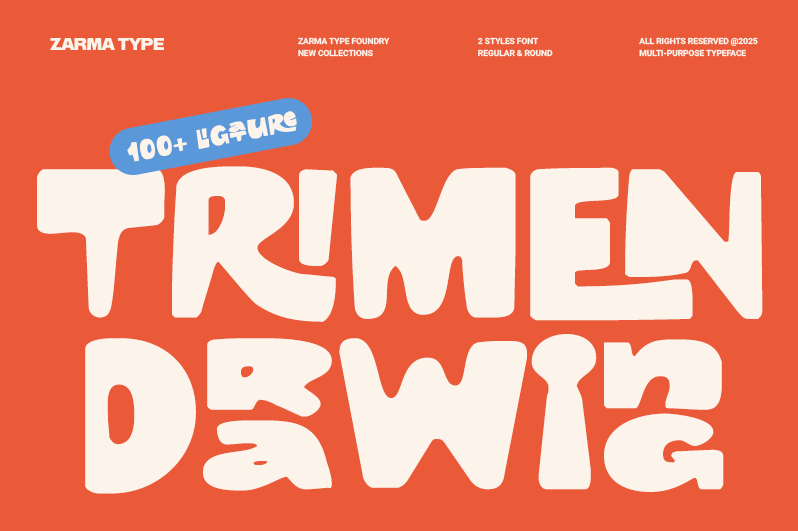
Trimen Drawing
Trimen Drawing is a modern bold font full of personality, perfect for designs that need to be fun, raw, and eye-catching. It features thick handdrawn strokes with playful curves that create a unique, expressive style. Moreover, its organic imperfections bring out a grunge flair that works well for youthful brands. Whether you're designing for food packaging, a poster, or a trendy label, this font adds punch and power to every layout. From pizza boxes to pet care labels, Trimen Drawing thrives in bold environments. Its distorted shapes and energetic presence help brands stand out in creative ways. The font includes multilingual support and alternate glyphs, so that designers can work freely across different languages and applications. Even small design choices will feel intentional, because every letter is packed with vibrant character. ======================================================== Please read this carefully before start using or installing the font. By using or installing the font you agree with our terms and condition. This FREE FONT can be used for PERSONAL USE ONLY (NO COMMERCIAL USE ALLOWED), test, evaluate and compare the font with others. FREE FONT cannot be used in finished commercial projects. If you use this font for your business purpose, please PURCHASE the COMMERCIAL LICENSE. Link to purchase full version and commercial : https://zarmatype.com/font/trimen-drawing-modern-bold-font/ Please visit our store for more amazing fonts: https://zarmatype.com/ For more detail about licensing please visit https :